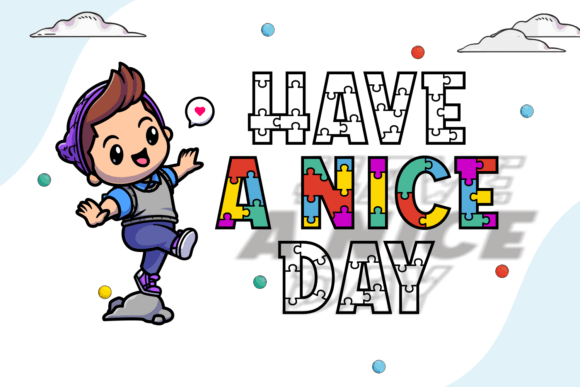
Unveiling Doshai Mazzle Font: The Whimsical Puzzle Piece Typeface
I’ll never forget the design project that led me to discover the enchanting world of Doshai Mazzle Font. I was working on a children’s book, searching for a typeface that could bring the story to life. The challenge was finding a font that was not only playful but also distinctive and engaging. That’s when I stumbled upon Doshai Mazzle, a whimsical yet distinctive typeface that reverberates with the zest of puzzle-piece inspired illustrations.
The Charm of Doshai Mazzle
The charm of Doshai Mazzle lies in its innovative design, showcasing letters formed from interlinked, vibrant puzzle segments. This unique feature emits a three-dimensional and toy-like aesthetic that excites the inner child in everyone. Unlike traditional solid fonts, Doshai Mazzle thrives on its segmented architecture, crafting an intriguing narrative of assembling together piece by piece.
Key Features and Flexibility
Doshai Mazzle comes equipped with a full uppercase and lowercase set, numerals, and a wide range of punctuation and symbols. Additionally, it offers multilingual support, making its flexibility span across diverse content genres and multiple languages. This makes it an ideal choice for reaching a young audience, creating vibrant educational material, or adding a dash of fun and creativity to any project.
Honest Review
- ✨ Unique puzzle-piece design that adds a playful touch to any project
- ✅ Full uppercase and lowercase set, numerals, and a wide range of punctuation and symbols
- 🌎 Multilingual support for diverse content genres and languages
- 🎉 Perfect for children’s books, educational games and apps, event invitations, toy packaging, and more
While Doshai Mazzle is a fantastic font, there are a few things to consider:
- 🤔 The font’s uniqueness might not be suitable for formal or professional projects
- ⚠️ Some characters might require adjustments for optimal readability
The story behind Doshai Mazzle’s creation is one of curiosity and playfulness. The designer, inspired by the world of puzzles and games, aimed to craft a typeface that would bring a sense of wonder and excitement to any project. By combining interlinked puzzle segments with a vibrant color scheme, Doshai Mazzle was born.
Q: What type of projects is Doshai Mazzle best suited for?
A: Doshai Mazzle is perfect for children’s books, educational games and apps, event invitations, toy packaging, and any project that requires a playful touch.
Q: Can I use Doshai Mazzle in combination with other fonts?
A: Absolutely! Doshai Mazzle can be paired with other fonts to create a unique visual identity. Experiment with different combinations to find the perfect match.